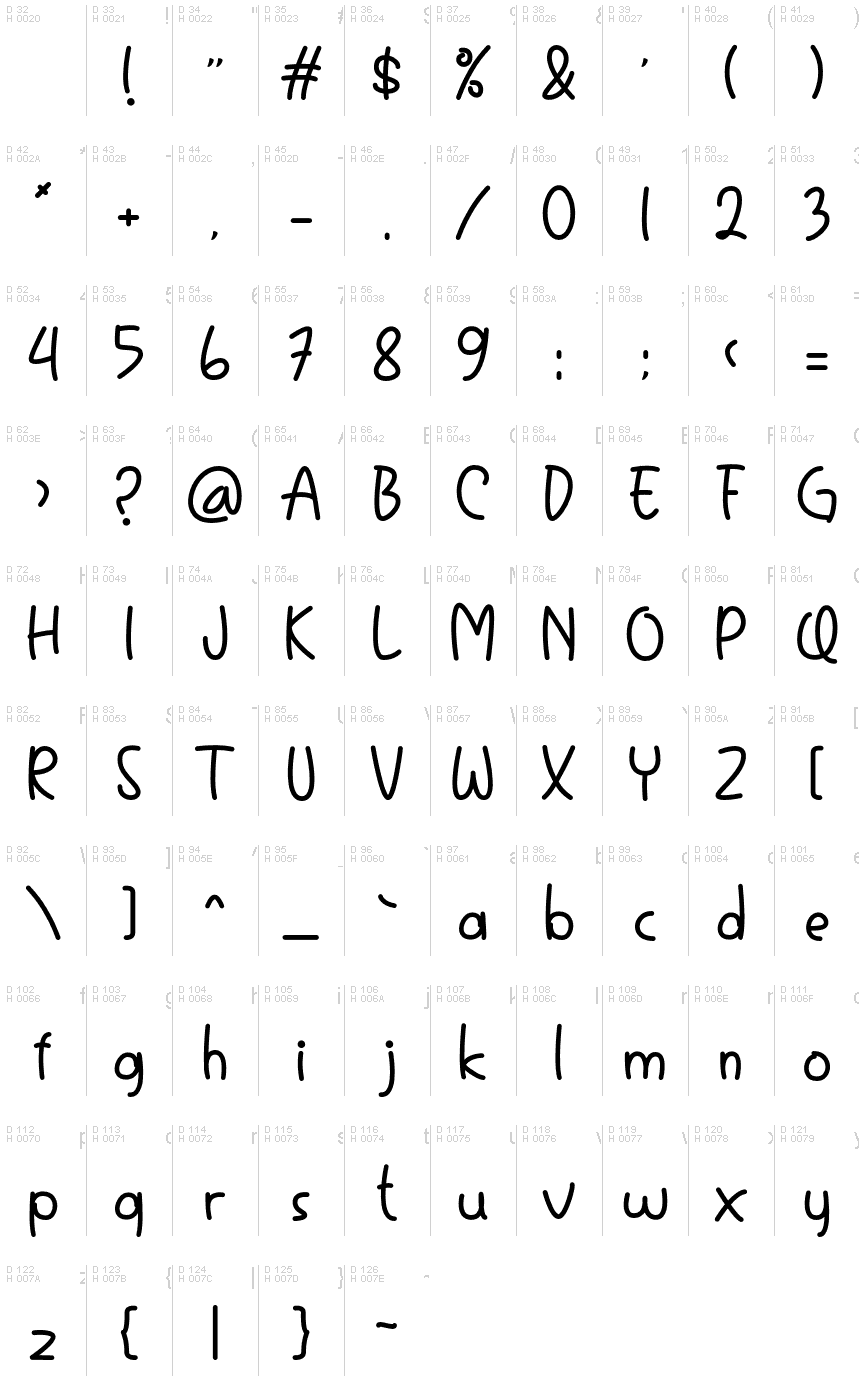
Tomodachy
Tomodachy, the charming semi-light handwritten font by Jehoo Creative is a perfect choice for those who want to add a personal touch to their projects. Its playful yet legible style makes it suitable for a wide range of designs, from greeting cards and wedding invitations to social media graphics and website headlines. Tomodachy's effortless grace will evoke feelings of warmth and familiarity, making it ideal for branding projects that require a touch of personality. Let this delightful font be your go-to choice when you want to infuse your creations with a sense of friendliness and approachability.